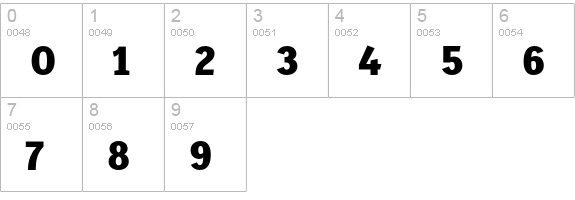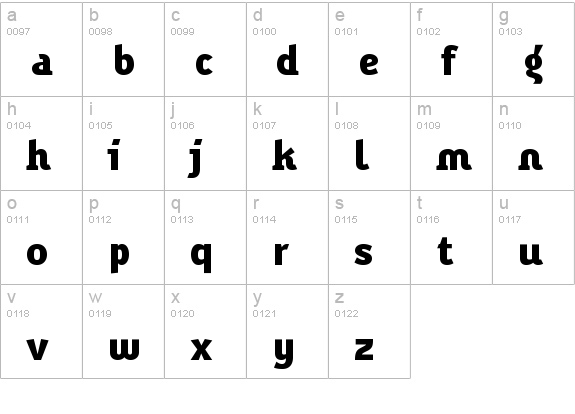
KarbidDisplay-ExtraBold Font Details
KarbidDisplay-ExtraBold is an extra-heavy, attention-grabbing variant in the KarbidDisplay typeface family \xE2\x80\x94 well suited to high-impact headlines, posters, and bold branding.
KarbidDisplay-ExtraBold is a captivating and bold font that demands attention and exudes confidence. With its strong and powerful letterforms, this font is perfect for making a statement and leaving a lasting impression. Featuring thick and striking strokes, KarbidDisplay-ExtraBold is designed to be easily readable even at smaller sizes, making it versatile for a wide range of design projects. Whether you're creating eye-catching headlines, impactful logos, or attention-grabbing posters, this font will not disappoint. One of the best parts about KarbidDisplay-ExtraBold is that it is completely free! That's right, you can download this incredible font for absolutely no cost at FontsMarket.com. With its premium quality and professional design, it's hard to believe that something this exceptional can be obtained for free. But at FontsMarket.com, we believe in making high-quality fonts accessible to everyone. So why wait? Enhance your designs with the bold and commanding presence of KarbidDisplay-ExtraBold. Download it now, for free, at FontsMarket.com and bring your creative vision to life.